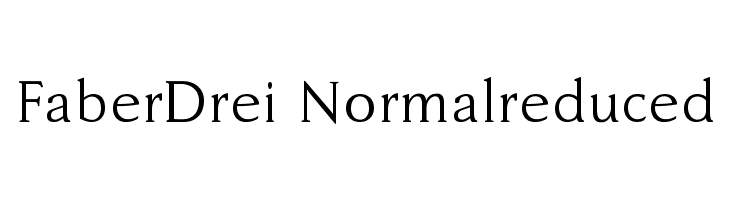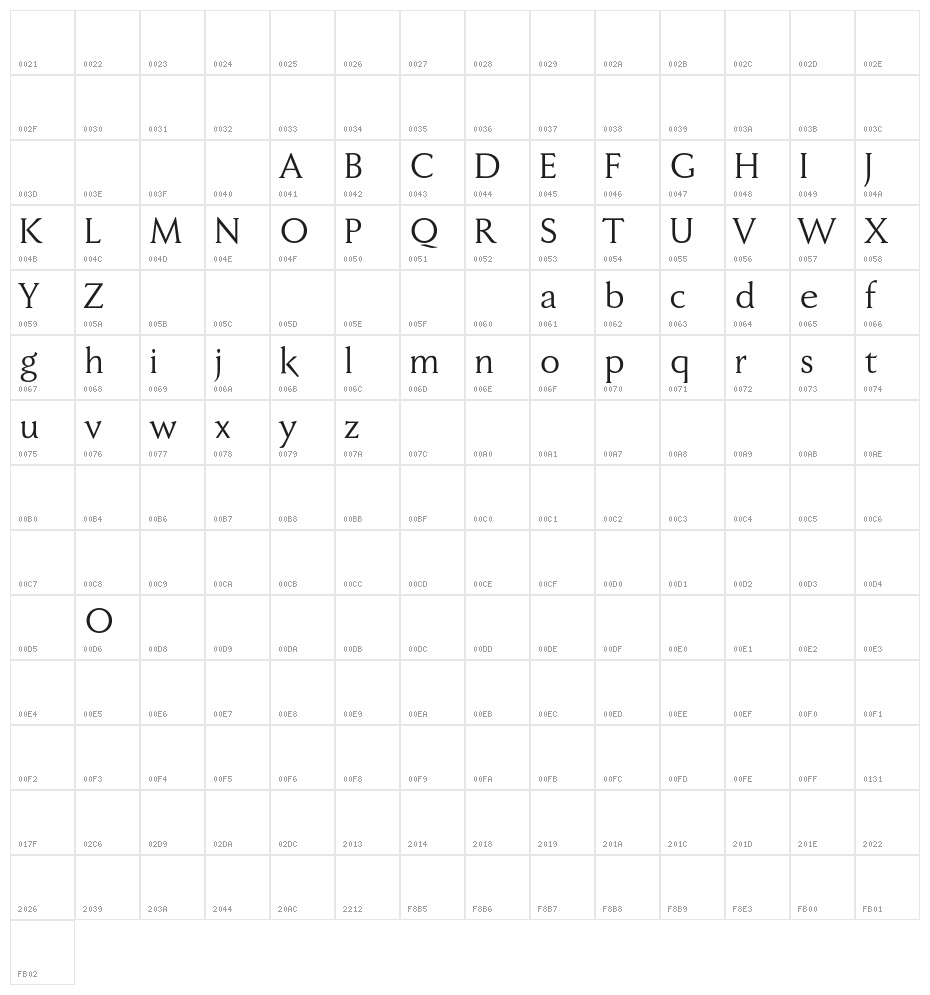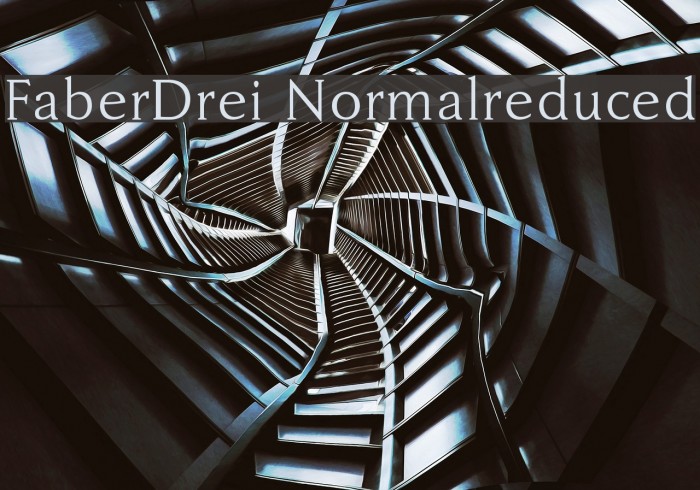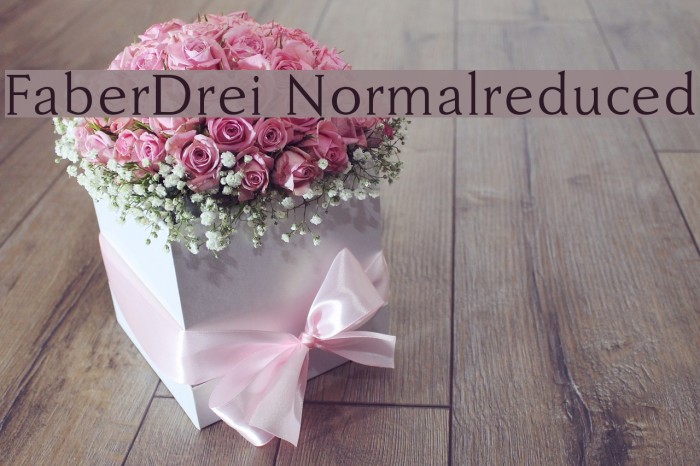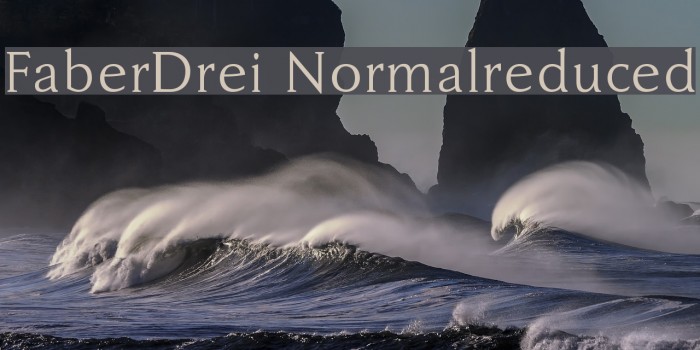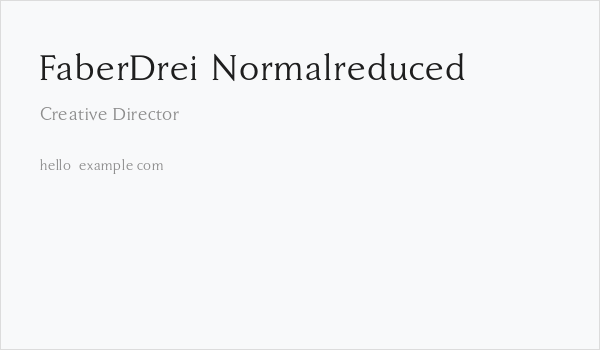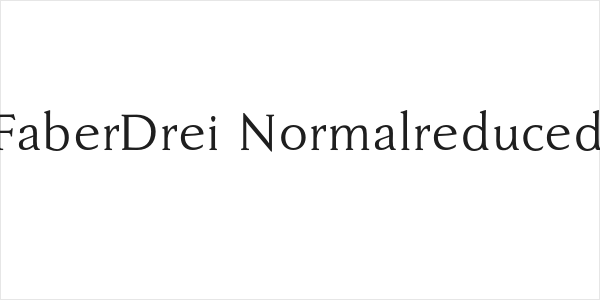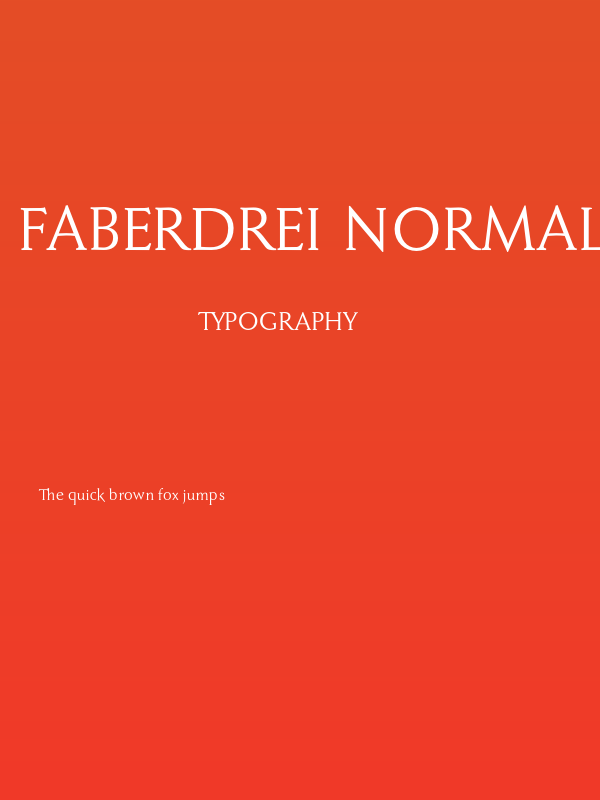
FaberDrei-Normalreduced Font
FaberDrei-Normalreduced Description
This typeface features a classic serif design with elegant, slightly curved strokes that give it a refined and sophisticated appearance. The uppercase letters are well-proportioned, with a traditional feel that is both timeless and versatile. The lowercase letters maintain a consistent style, with smooth transitions and balanced forms. The numerals are clear and legible, complementing the overall aesthetic. The special characters are thoughtfully designed, ensuring consistency across the entire character set. This font is suitable for a wide range of applications, offering both readability and style.
| Proposed Projects | Ideal for editorial design, book covers, formal invitations, and branding projects. |